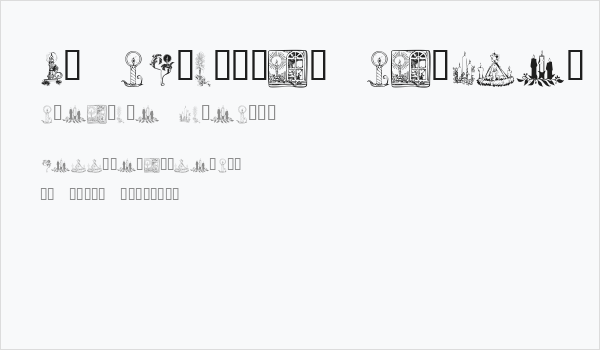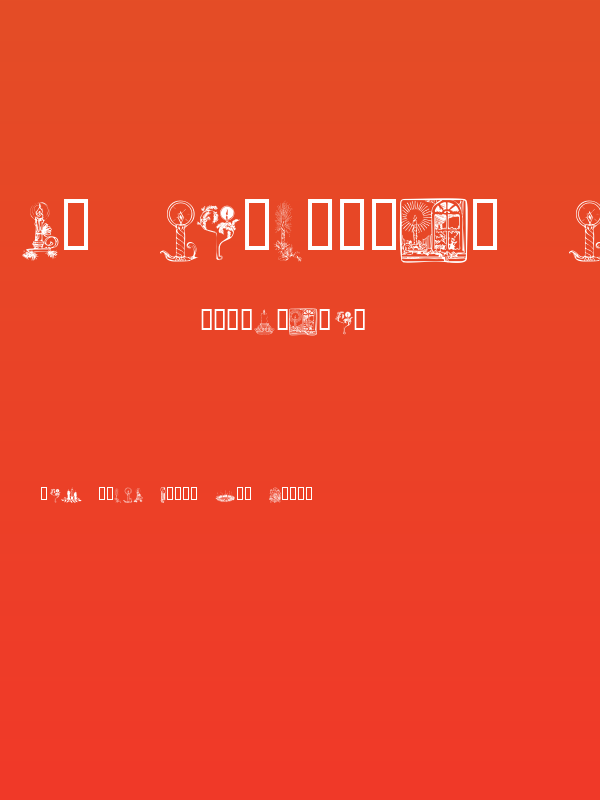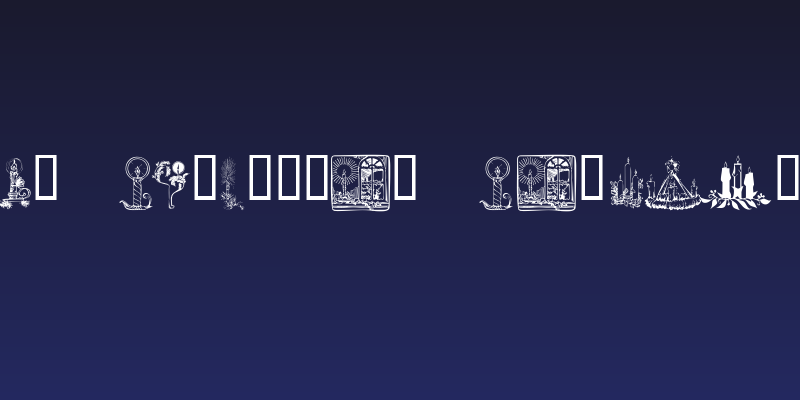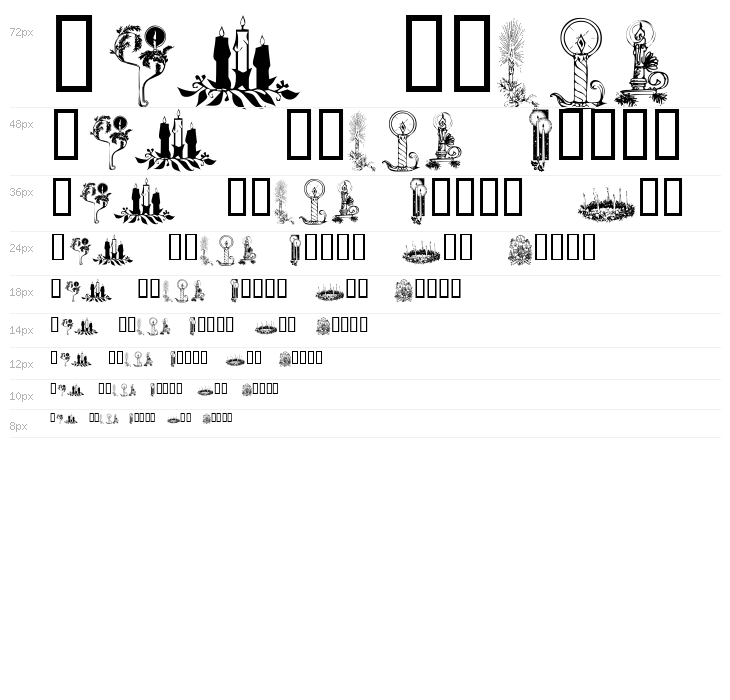
KR Christmas Candles Font
KR Christmas Candles Description
This decorative font features intricate Christmas-themed illustrations, primarily focused on candles and festive arrangements. Each character is represented by a unique, detailed image that captures the essence of holiday warmth and celebration. The designs include candles in various settings, such as wreaths, windows, and festive table arrangements, showcasing a variety of styles from simple to ornate. The illustrations are black and white, emphasizing the detailed line work and intricate patterns. This font is perfect for adding a festive touch to holiday projects, offering a unique and artistic way to convey the spirit of Christmas.